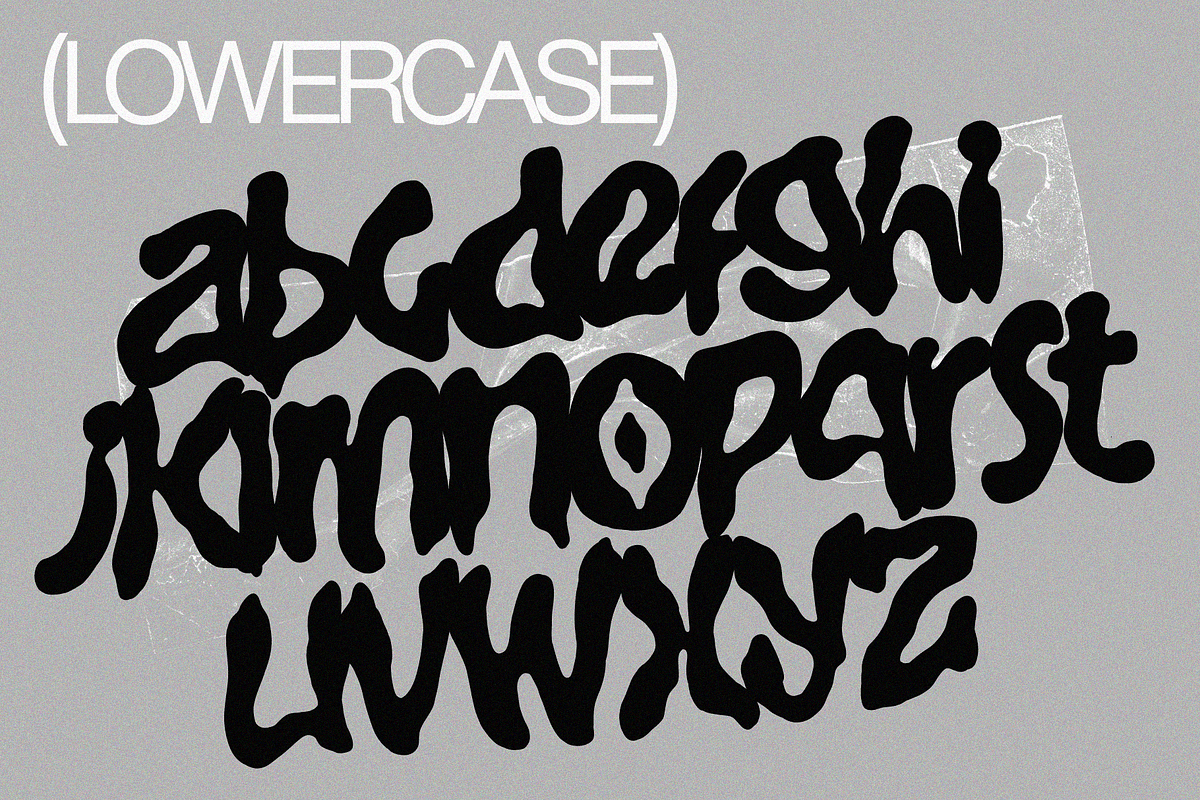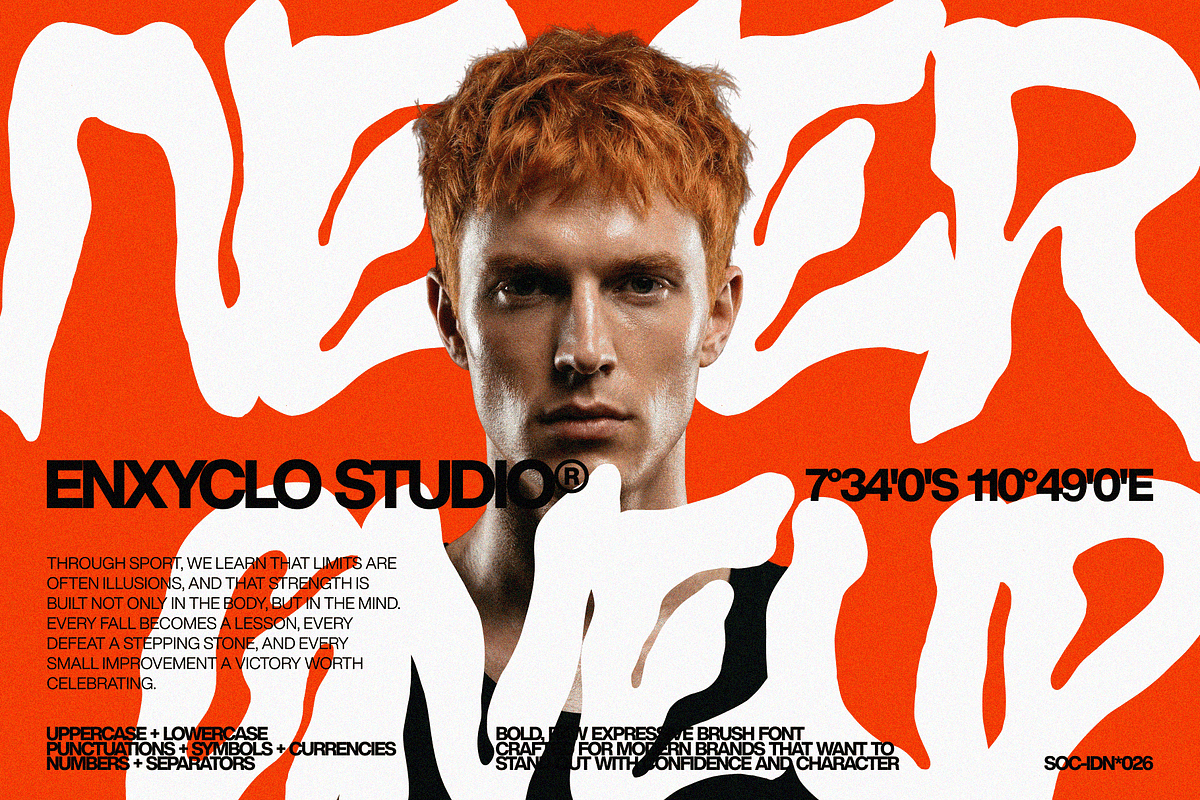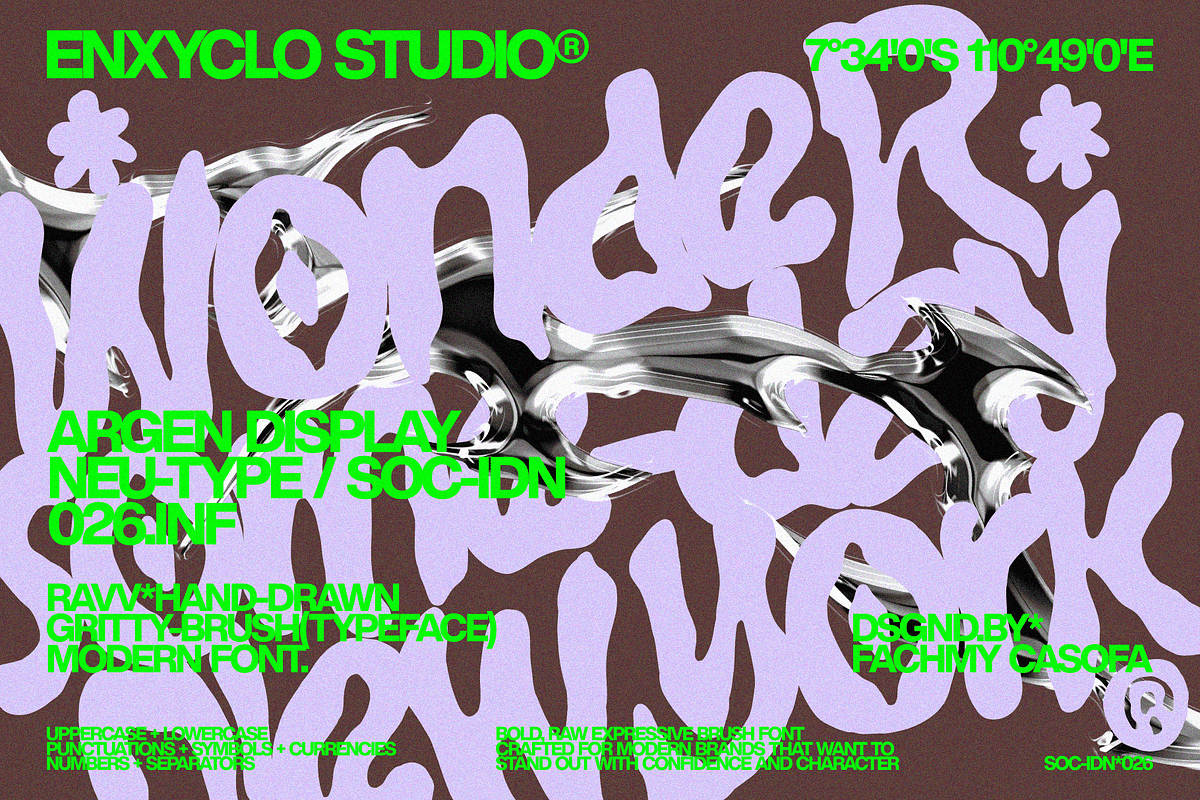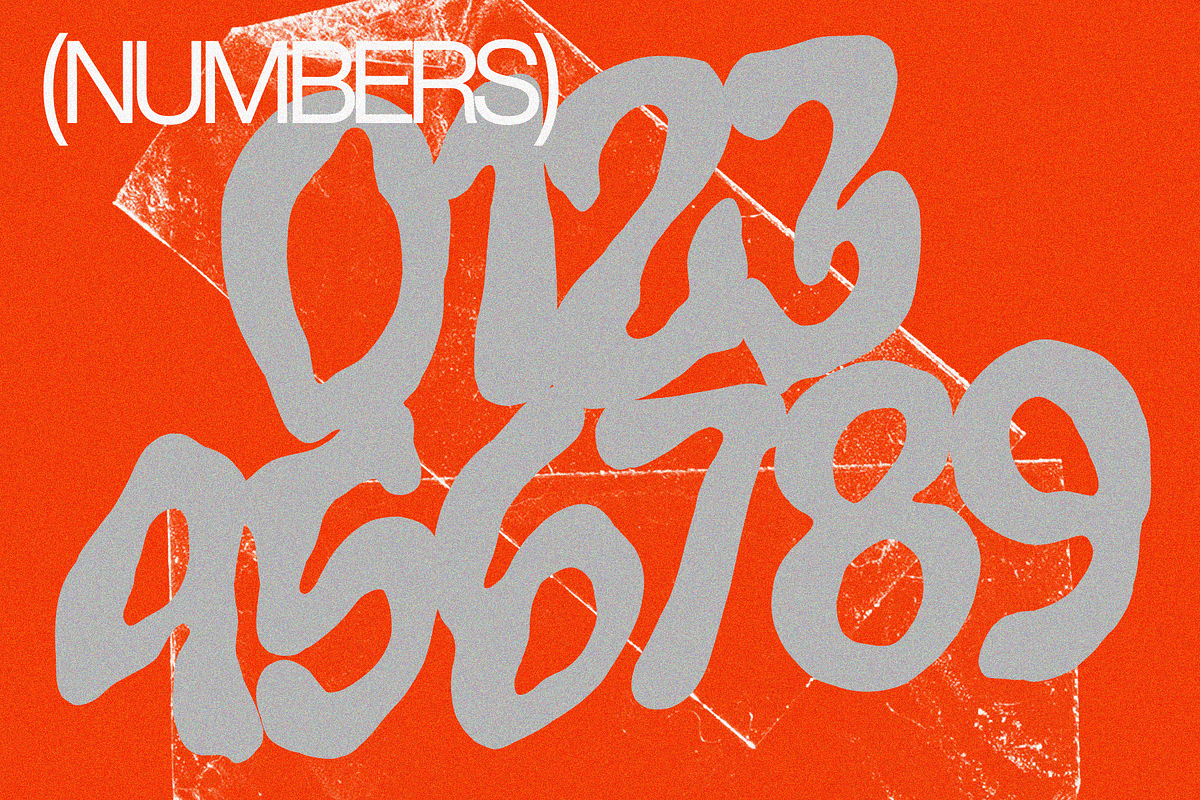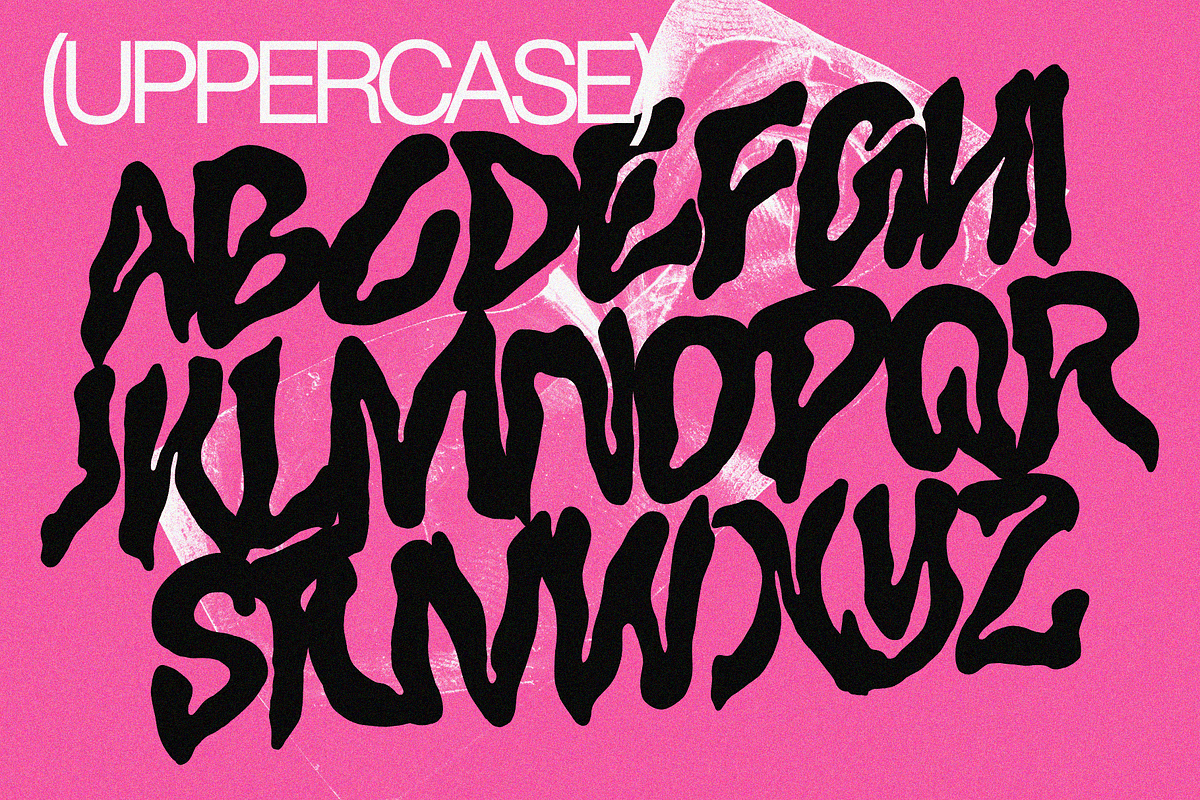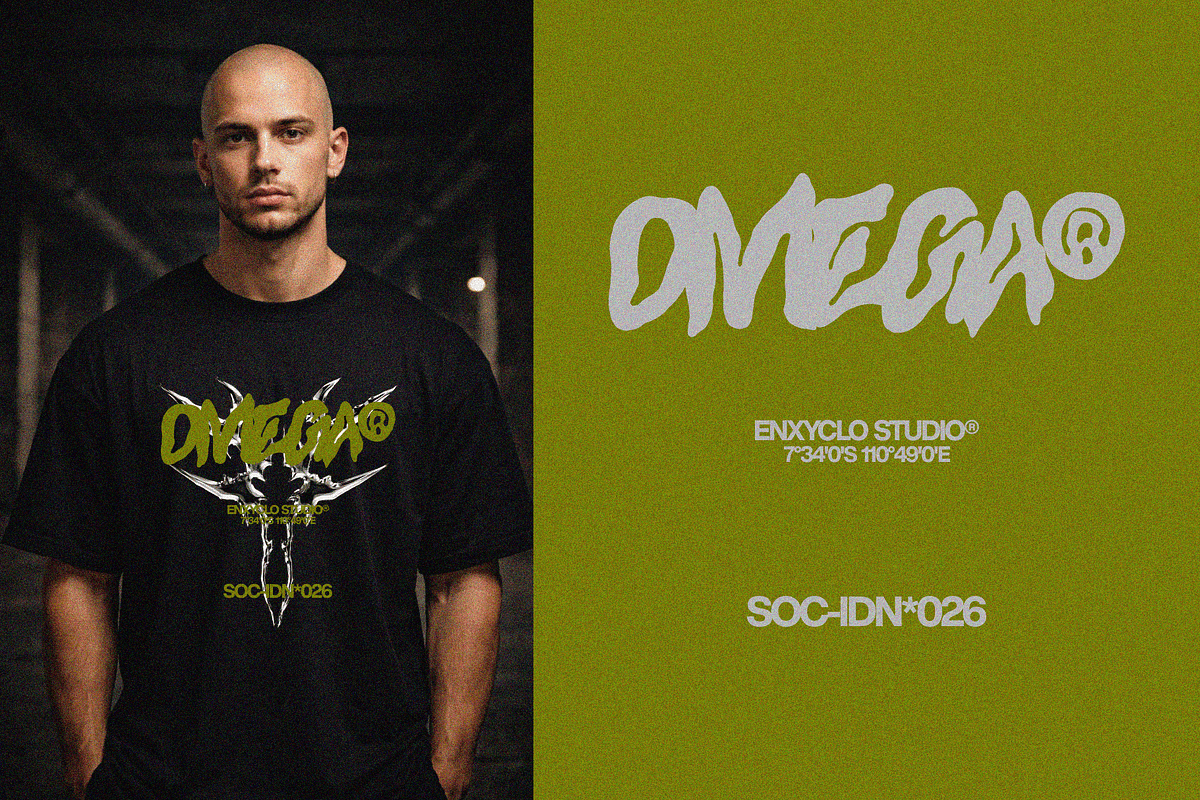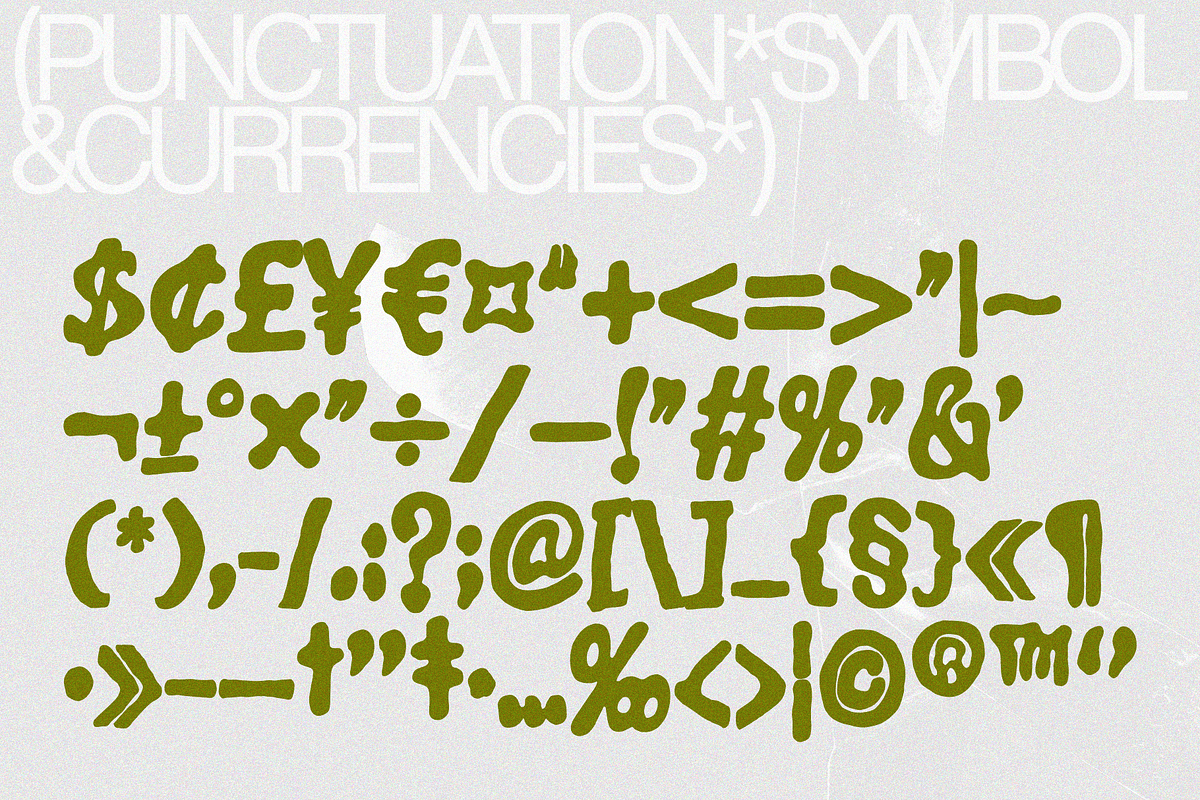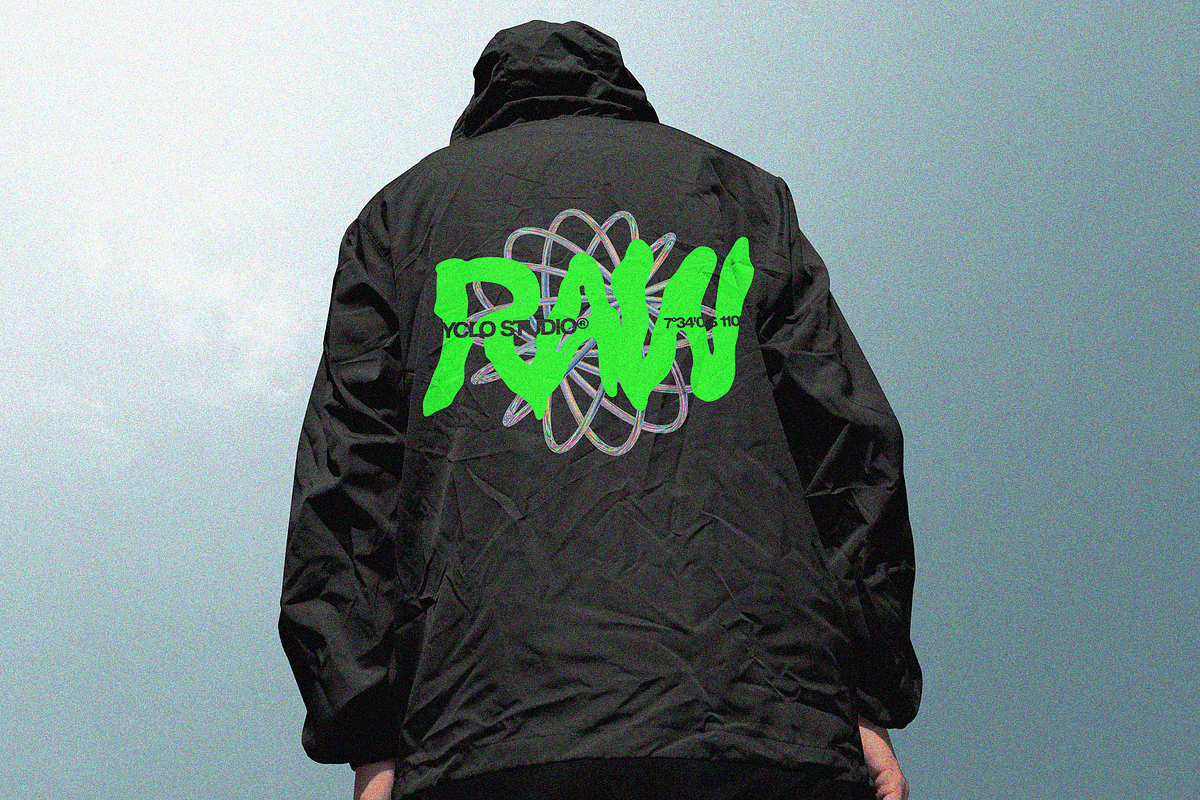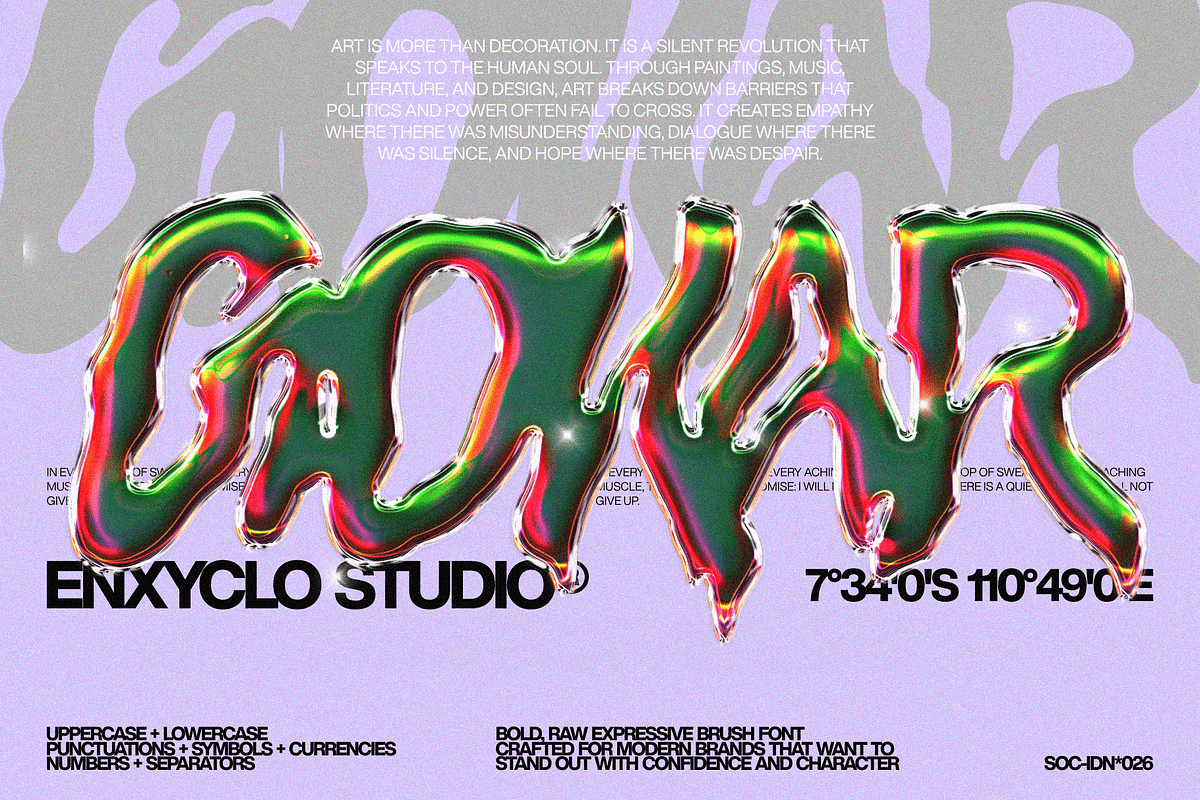
ARGEN — Raw Expressive Gritty Font
ARGEN is a bold, raw expressive brush font crafted for modern brands that want to stand out with confidence and character. Inspired by rough hand-painted strokes and expressive lettering, ARGEN blends raw energy with a clean, contemporary structure—creating a powerful balance between chaos and control.
Its rough yet intentional brush texture delivers an authentic, handmade feel while staying readable and minimal enough for modern design needs. ARGEN is designed to feel bold, creative, and fearless—perfect for logos that need personality, attitude, and a strong visual voice.
Whether you’re building a creative logo, agency branding, or modern logotype, ARGEN brings expressive strength and modern edge into every letterform. This font doesn’t whisper—it speaks loud, raw, and confidently.
FEATURE
- Uppercase letters
- Lowercase letters
- Punctuation marks
- Symbol set
- Currency symbols
PERFECT FOR
- Creative logo & logotype design
- Branding & brand identity
- Modern agency visuals
- Contemporary packaging
- Poster & headline design
- Social media graphics
- Creative campaigns & visual storytelling